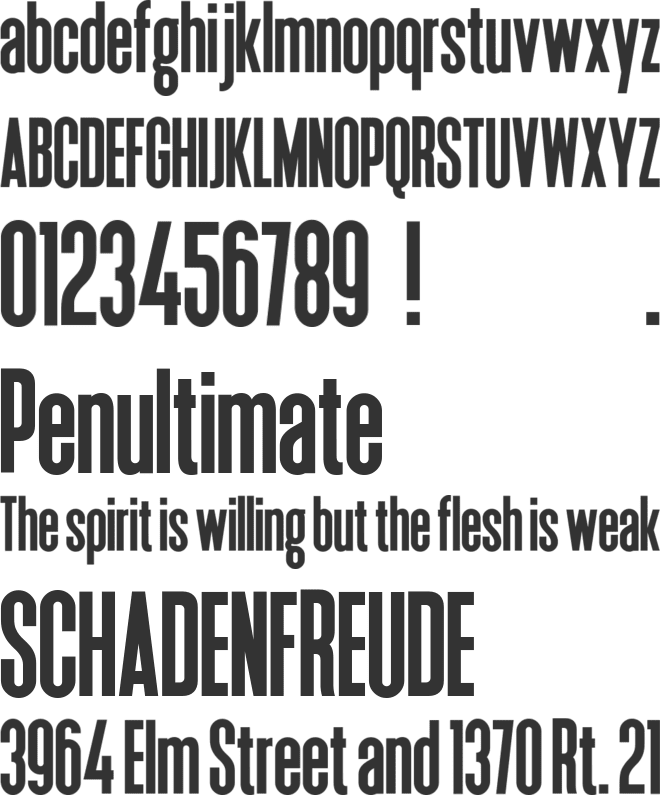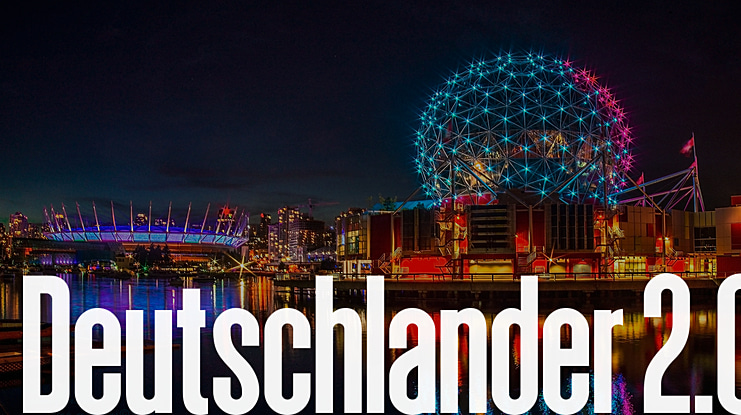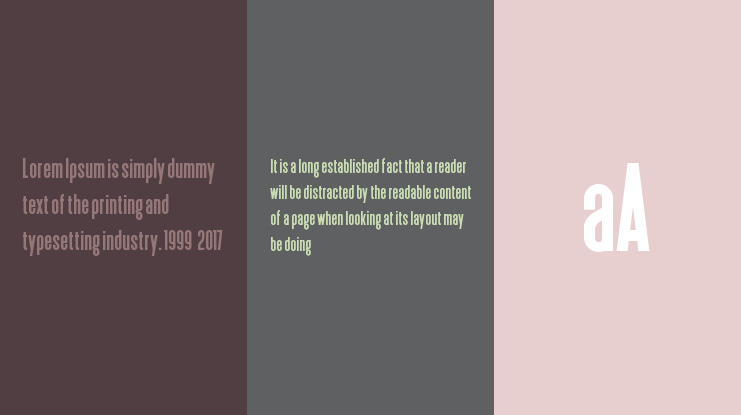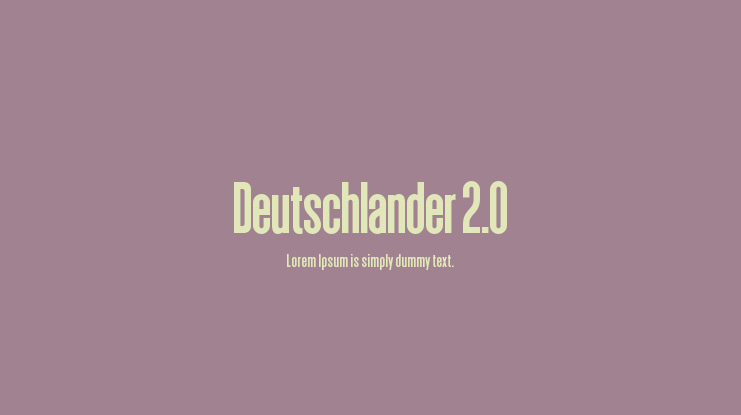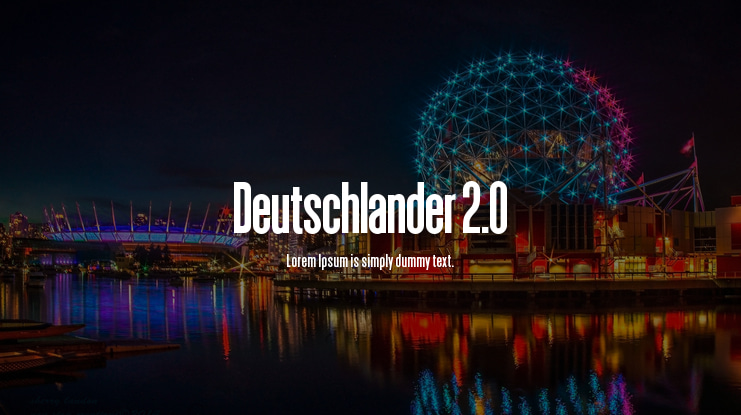
Deutschlander 2.0 Font
The next installment of the Deutschlander family gets a bit of a makeover in the 2.0 version. This display sans is a popular choice for squeezing text into tight spots like business cards, movie credits, or anywhere space is limited. The biggest differences include improved spacing, many redesigned characters, and support for more European languages. The full version is available in Regular and Italic. Basic Latin, extended Latin, diacritics, Cyrillic, Greek, punctuation, ordinals, fractions, alternates, and kerning are all included. Please check glyph maps for all supported characters. Basic Latin, numbers, and limited punctuation are available in the demo.